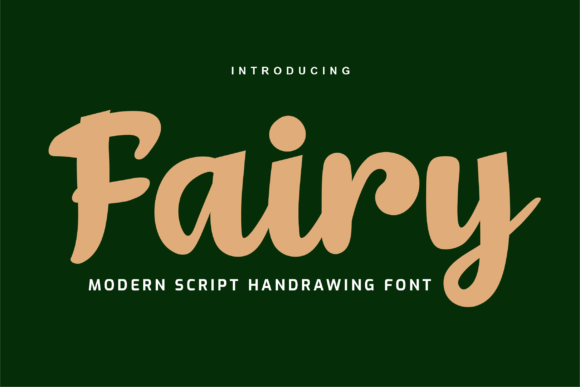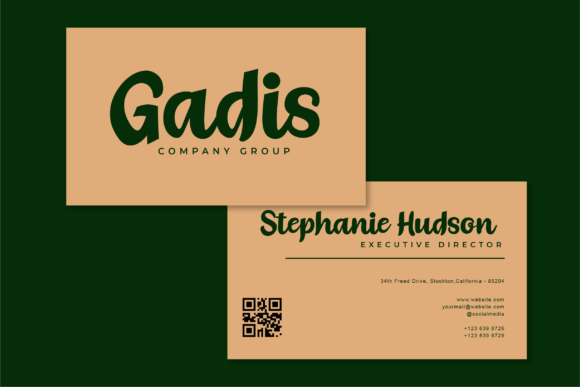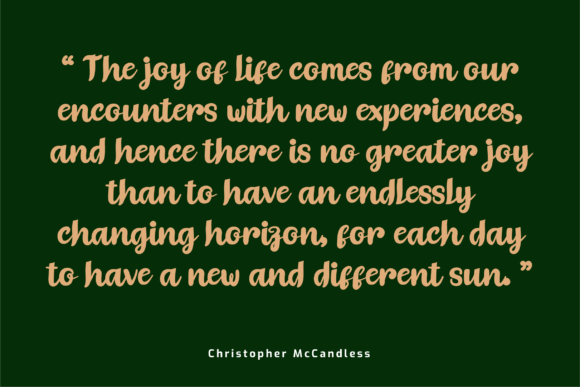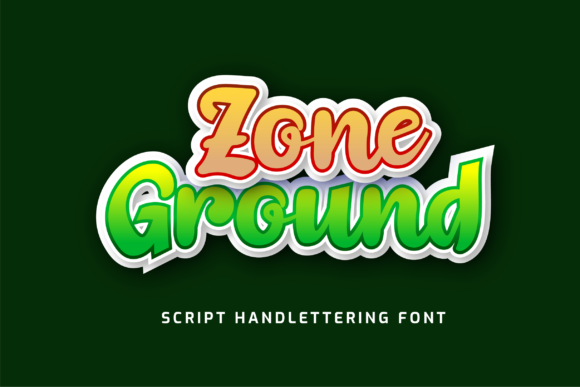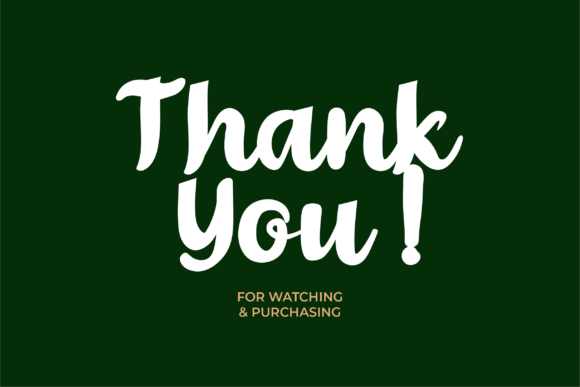
Fairy Font
About Fairy Font
Fairy is a sweet and round lettered handwritten font, created with the help of a lovely brush pen. Fall in love with its incredibly versatile style and use it to create spectacular designs!